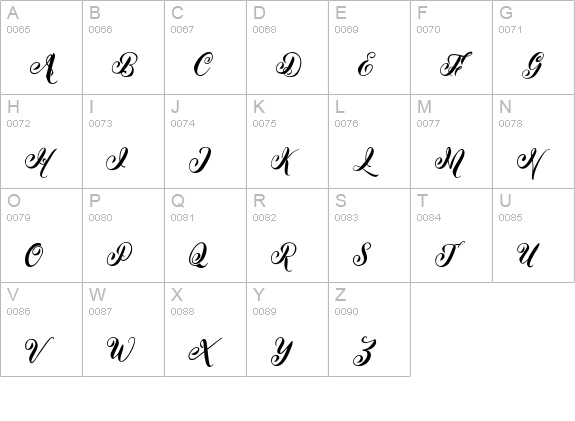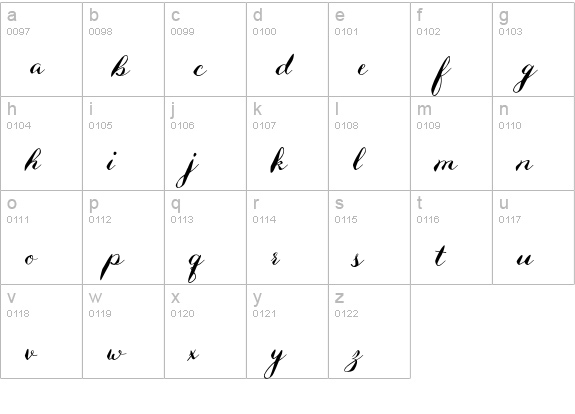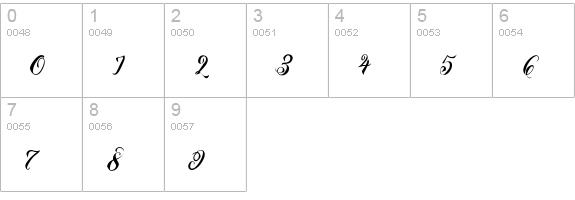
Hefalo script Font Details
Hefalo script font is a stunning and elegant typeface that exudes sophistication and charm. With its flowing lines and graceful curves, this font is perfect for adding a touch of class to your designs. Whether you're working on invitations, branding, or any other project that calls for a touch of elegance, Hefalo script font is sure to impress. The best part? Hefalo script font is completely free to download at FontsMarket.com. That's right, you can add this beautiful font to your collection without spending a dime. So why wait? Download Hefalo script font today and elevate your designs with its timeless beauty and flair.